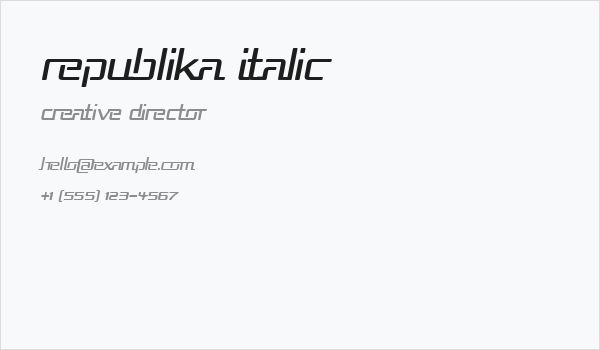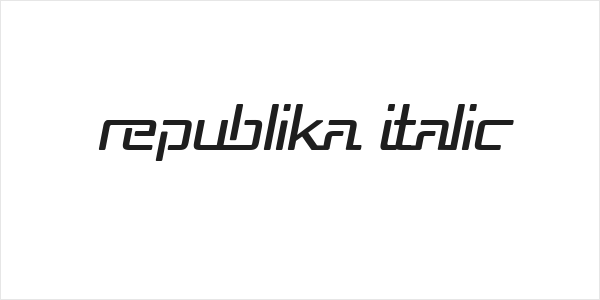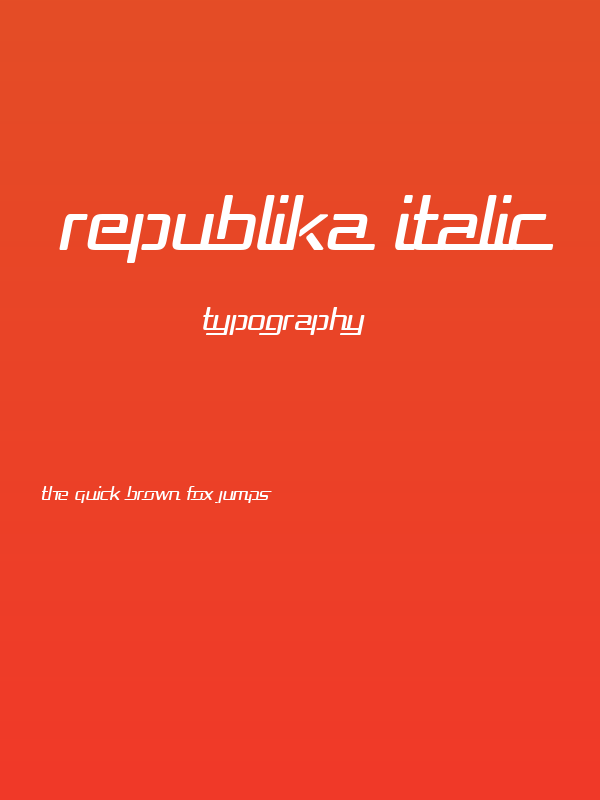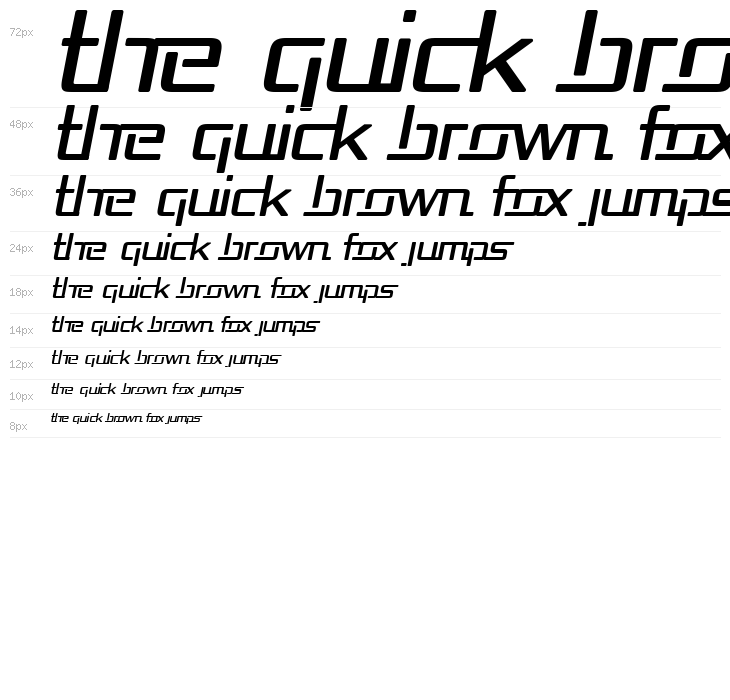
Republika Italic Font
Republika Italic Description
This font exhibits a sleek, modern design with a distinct italic slant, giving it a dynamic and forward-moving appearance. The characters are uniformly structured with a geometric influence, featuring clean lines and sharp angles. The lowercase letters maintain a consistent height, while the uppercase letters stand out with their bold presence. The numerals are well-proportioned, aligning seamlessly with the overall style. Special characters are crafted with precision, complementing the font's contemporary aesthetic. The uniformity in stroke width across all characters contributes to a cohesive and polished look.
Use CaseLogos, Headlines, Branding
Proposed ProjectsIdeal for technology branding, sports team logos, futuristic designs, and dynamic advertising campaigns.